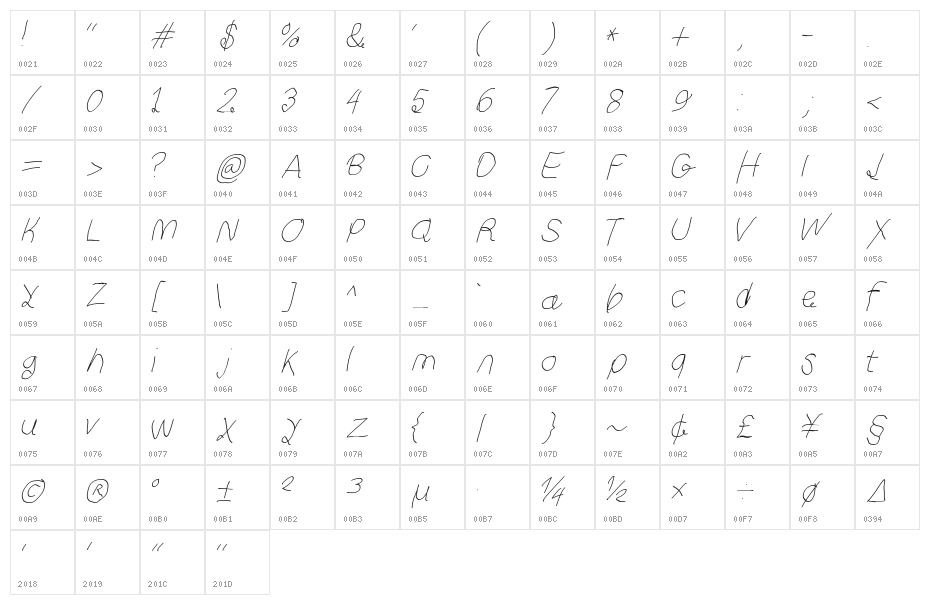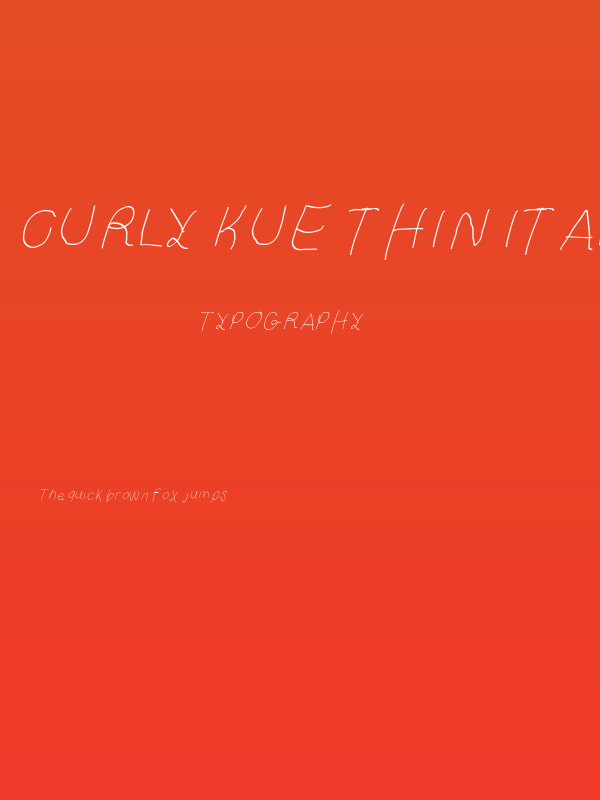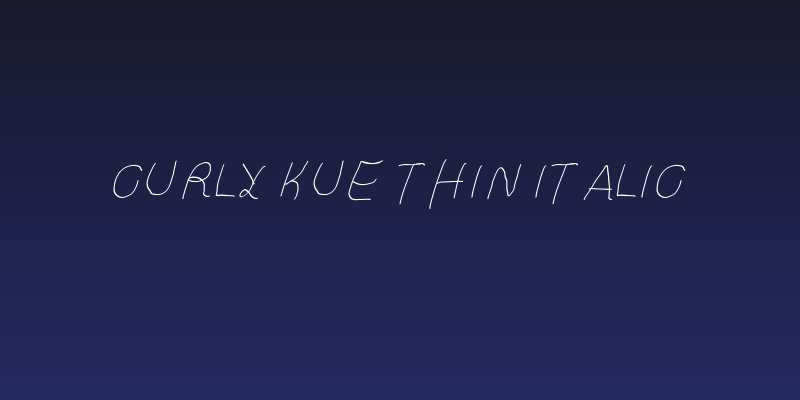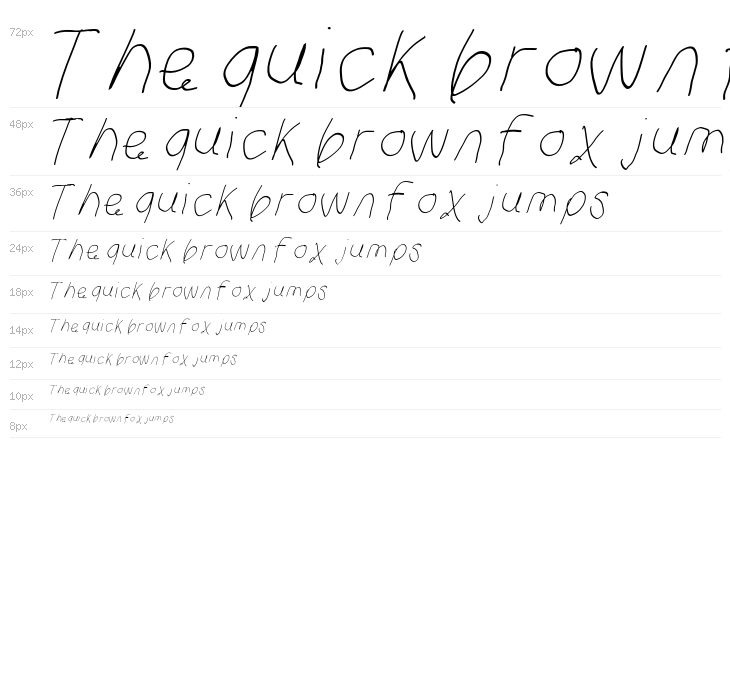
Curly Kue Thin Italic Font
Curly Kue Thin Italic Description
This font features a whimsical, handwritten style with a thin, delicate stroke. Each character is slightly slanted, giving it an italicized appearance. The letters have a playful, curly design, with smooth curves and loops that add a sense of movement and fluidity. The uppercase letters are distinct and easily recognizable, while the lowercase letters maintain a consistent style that complements the overall aesthetic. Numbers and special characters are crafted with the same attention to detail, ensuring a cohesive look across all elements. This font's light weight and airy feel make it suitable for projects that require a touch of elegance and personality.
Use CaseLogos, Invitations, Personal Branding
Proposed ProjectsIdeal for greeting cards, invitations, personal branding, and creative projects that benefit from a personal touch.